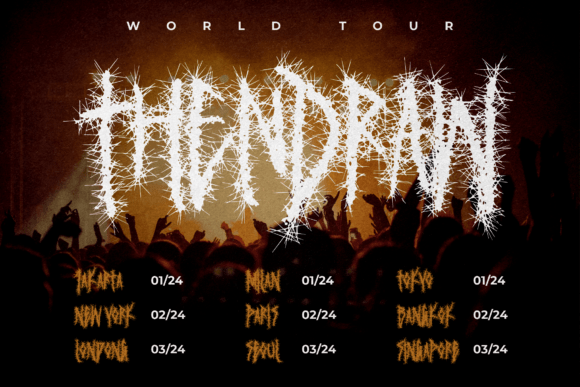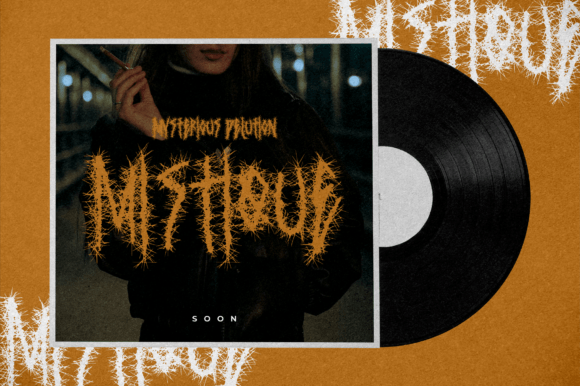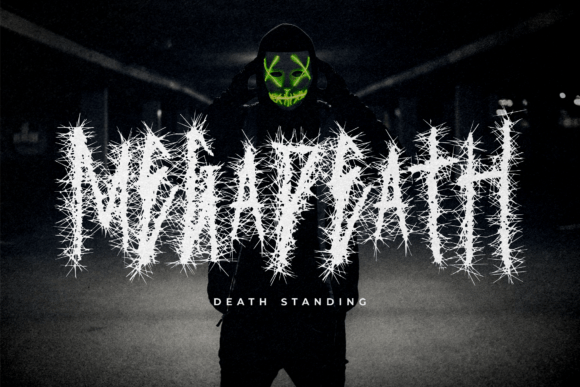
Introduction to Darkside Morbizey Font
Have you ever been working on a creative project, pouring your heart and soul into it, only to feel like something’s missing? That’s where the perfect font can make all the difference. For designers, finding the right font can be a game-changer, elevating their work from good to great. And that’s exactly what we’re excited to share with you today – the Darkside Morbizey Font.
This stunning metal display font is perfect for a wide range of projects, from logos and branding to homeware designs and product packaging. With its unique, high-quality design, it’s sure to add a touch of sophistication and elegance to any project. Whether you’re looking for a free download or a valuable design resource, the Darkside Morbizey Font is an excellent choice.
Key Features of Darkside Morbizey Font
- Unique, high-quality design for creative projects, offering a dark and mysterious aesthetic.
- Features a transparent background, allowing for seamless integration with custom designs and backgrounds.
- High-resolution font, suitable for use in a range of applications, from print to digital media.
- Perfect for designers and artists looking to add a touch of darkness and mystery to their creative projects.
Honest Review: Darkside Morbizey Font
I recently had the chance to work with the Darkside Morbizey Font for a creative project, and I must say, it’s been a game-changer. This font is a high-quality design resource that adds a unique touch to any project.
- ✨ Unique and edgy design: The Darkside Morbizey Font has a distinct, gothic-inspired aesthetic that sets it apart from other fonts.
- ✨ Transparent background: The font’s transparent background makes it easy to use with images and other design elements.
- ⚠️ Limited font styles: The Darkside Morbizey Font only comes in a few styles, which may limit its versatility for some designers.
- ⚠️ Not ideal for body text: Due to its unique design, the font may not be the best choice for large blocks of text.
Overall, I’m impressed with the Darkside Morbizey Font. While it may have some limitations, its unique design and free download make it a valuable design resource for any creative project.
Using in Creative Projects
The Darkside Morbizey Font is a versatile design resource that can be used in a variety of creative projects, including graphic design, digital art, and even web design. You can use it in Canva, Adobe Photoshop/Illustrator, or PowerPoint/Word to add a unique touch to your designs.
Getting the Most Out of the Font
To get the most out of the Darkside Morbizey Font, try experimenting with different font sizes, colors, and combinations. You can also use it in conjunction with other design elements, such as images and shapes, to create a cohesive and visually appealing design.
The Darkside Morbizey Font is commonly used in a variety of design projects, including:
- Graphic design: logos, business cards, brochures
- Digital art: illustrations, animations, and graphics
- Web design: headings, titles, and body text
Alternatives to Darkside Morbizey Font
1. Black Rose Font
The Black Rose Font is a high-quality, gothic-inspired font ideal for creative projects that require a touch of elegance and sophistication. It’s available for free download and features a transparent background, making it easy to integrate into various design resources.
Use the Black Rose Font for projects that demand a sense of luxury and refinement, such as wedding invitations, luxury branding, or high-end packaging designs. It compares to Darkside Morbizey Font in its dramatic and mysterious feel, but with a more refined and sophisticated tone.
2. Morbid Font
The Morbid Font is a bold, macabre-inspired font perfect for creative projects that require a touch of darkness and whimsy. It’s a high-quality design resource available for free download and features a transparent background, making it easy to customize and integrate into various design elements.